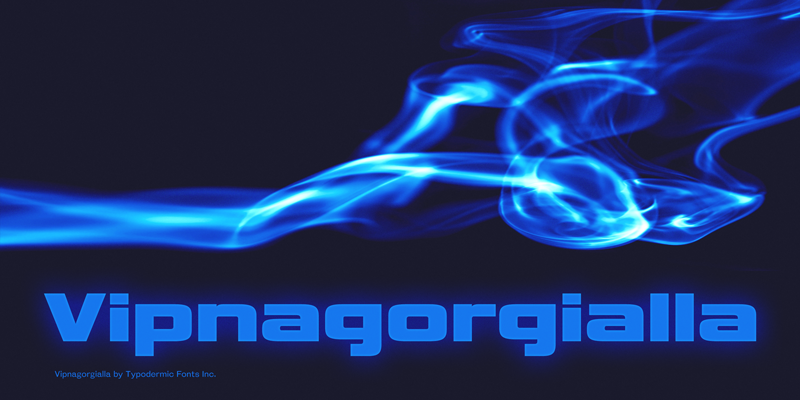
Font name: | Vipnagorgialla |
Vipnagorgialla is what many consider to be one of the most intricate, elegant fonts ever designed. But hey, don’t let me tell you what to think. You be the judge. This font includes a license that allows free commercial use: sometimes referred to as a desktop license. This allows you to install the font on a computer and use it to create posters, web graphics, game graphics, t-shirts, videos, signs, logos and more. Read the license agreement for details. If you'd like to embed this font in an app, ebook, on the web or anything that's not covered by the desktop license agreement, visit the link below. You'll find distributors who offer different types of licenses or you can contact me for help. http://typodermicfonts.com/vipnagorgialla/ |